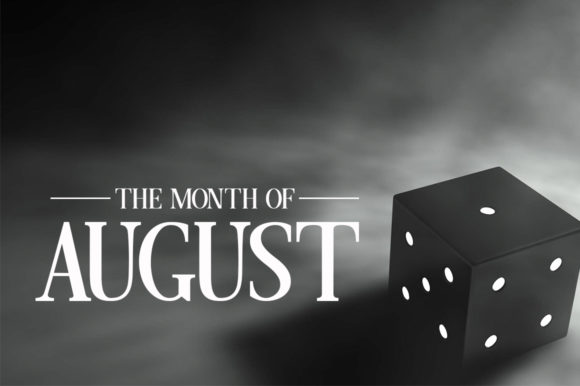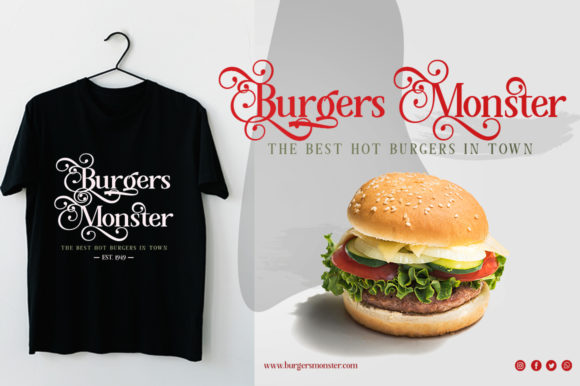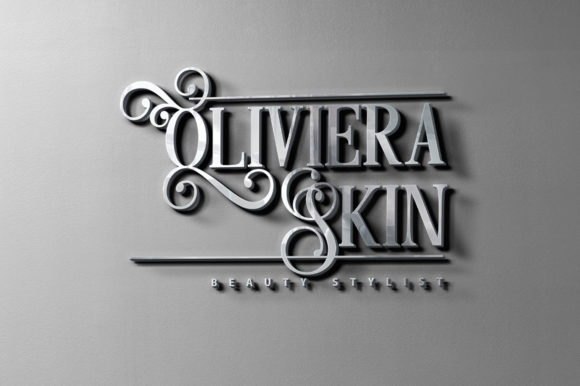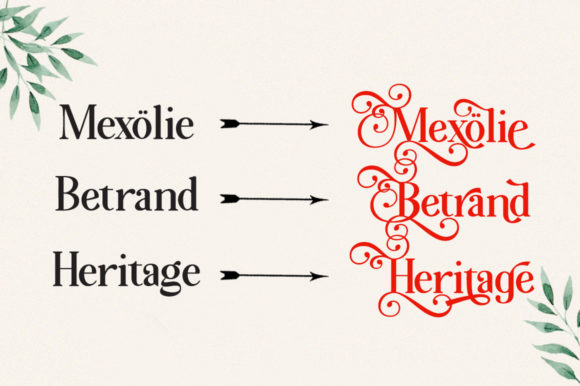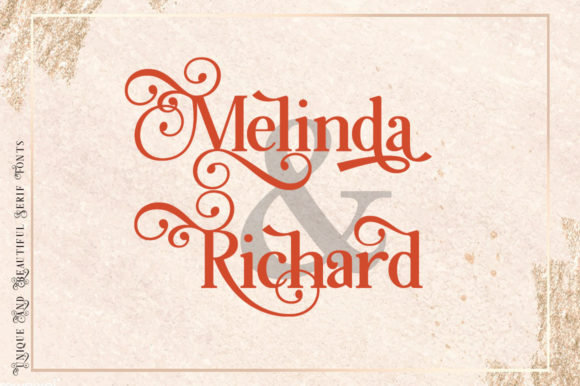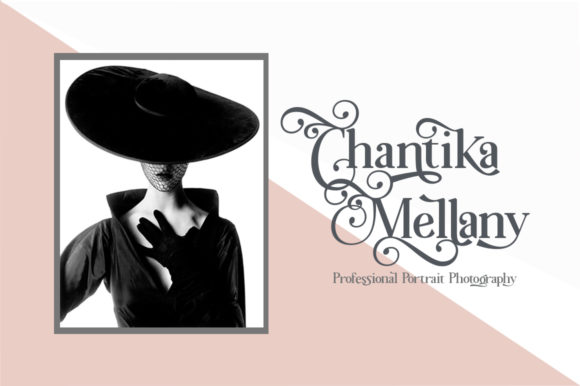
Introduction to Megona Font
Megona is an elegant and unique display font.
Key Features of Megona Font
Why Choose Megona Font?
Megona Font offers exceptional quality and versatility, making it a valuable addition to your design toolkit. Whether you’re creating for personal projects or commercial use, Megona Font delivers professional results.